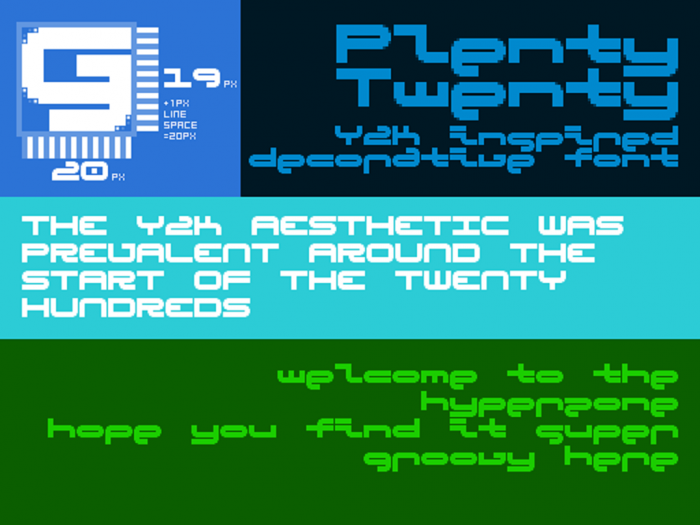
20 spaces wide, (20-1) spaces tall, Y2K style (20-hundreds).
Entry 3 of 3... Went for something more futuristic.
A perfect capture of the early 2000s vibes. Just missing the Winamp skin that uses it ;)